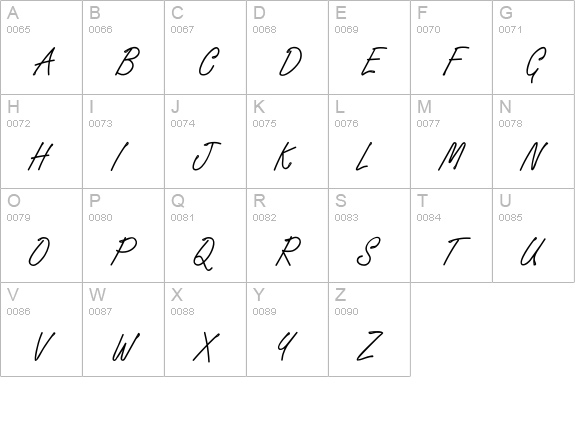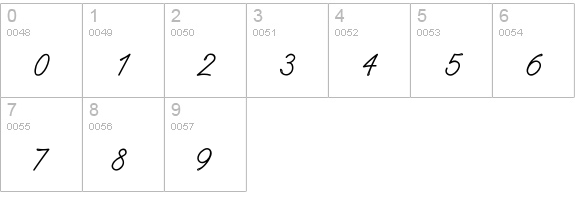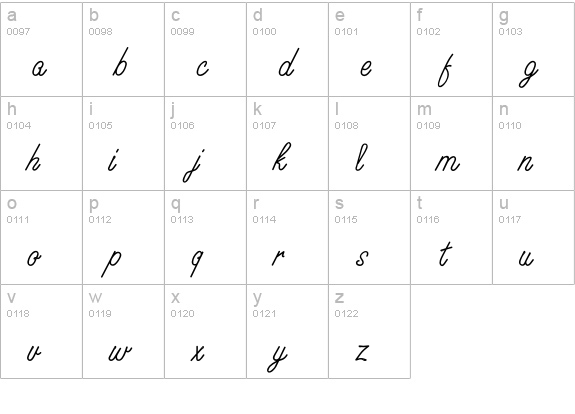
SignatureFont Font Details
Introducing SignatureFont, a stunningly elegant font that will add a touch of sophistication and style to any project. This typeface exudes a sense of grace and refinement, making it perfect for invitations, logos, and branding materials. With its beautifully flowing strokes and delicate curves, SignatureFont captures the essence of handwritten calligraphy, lending a personal and intimate touch to your designs. But what sets SignatureFont apart is not just its exquisite design – it's also the fact that it is completely free. Yes, you read that right! SignatureFont is freely available to download at FontsMarket.com, a trusted source for high-quality fonts. Whether you're a professional designer or a casual enthusiast, you can now access this incredible font without any cost. SignatureFont offers a wide range of characters, including uppercase and lowercase letters, numbers, punctuation marks, and even stylish ligatures. This versatility allows you to create unique and captivating compositions that truly stand out. Moreover, its smooth and clean outlines ensure legibility even at smaller sizes, making it suitable for various applications. So don't miss out on this opportunity to elevate your designs with SignatureFont. Download it for free at FontsMarket.com and let your creativity shine. With its timeless elegance and accessibility, this font is sure to become a go-to choice for all your design needs. Experience the beauty and versatility of SignatureFont today!